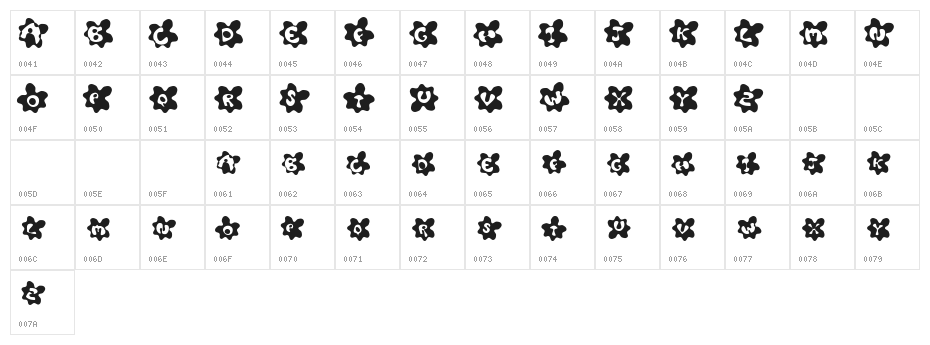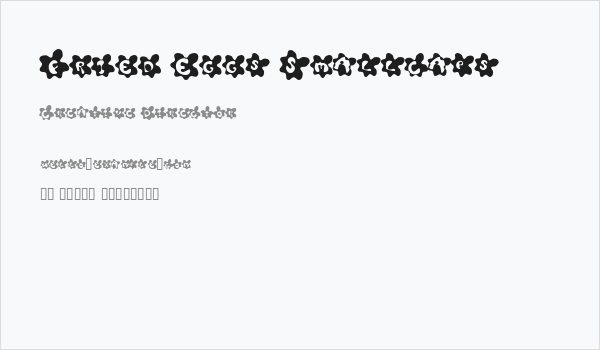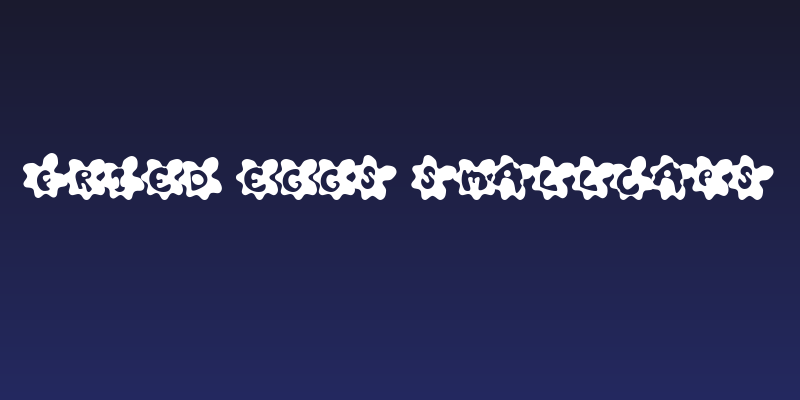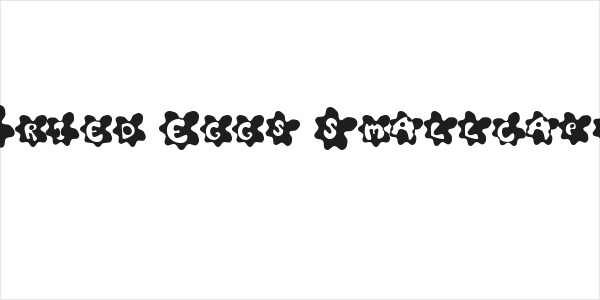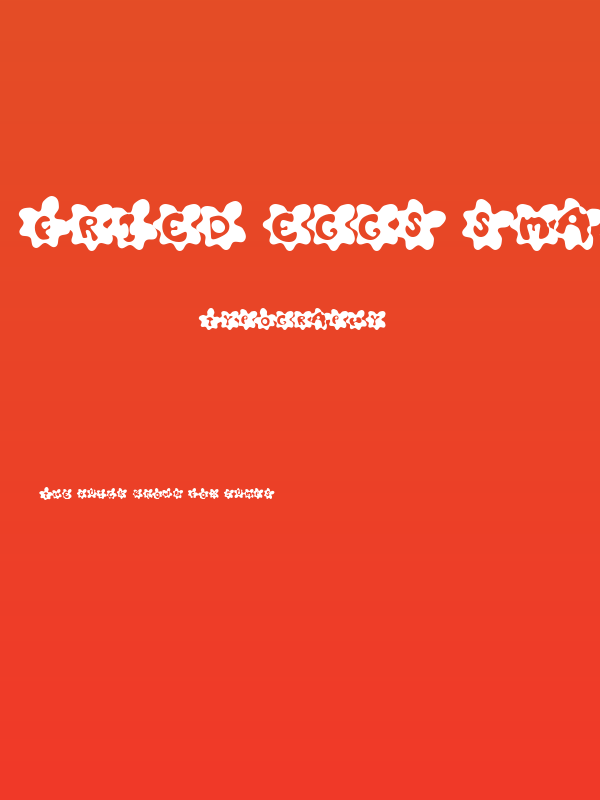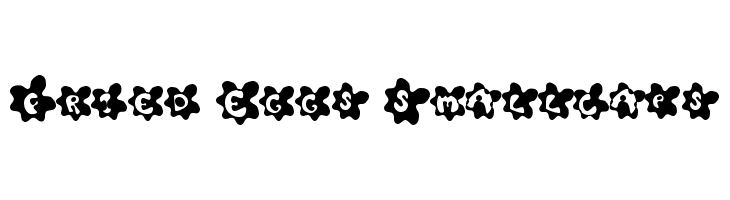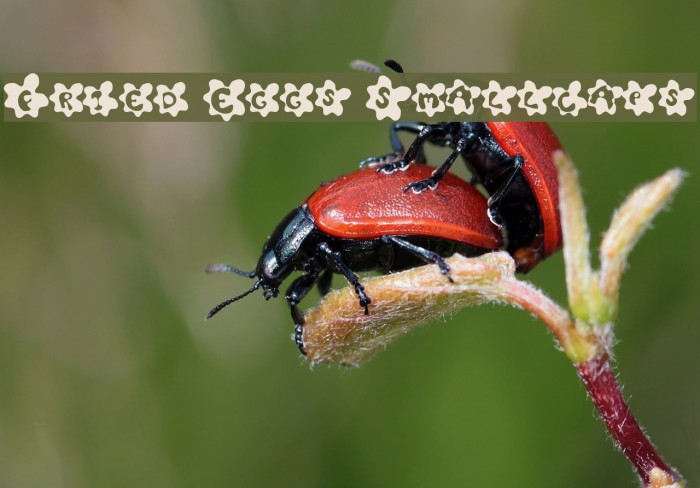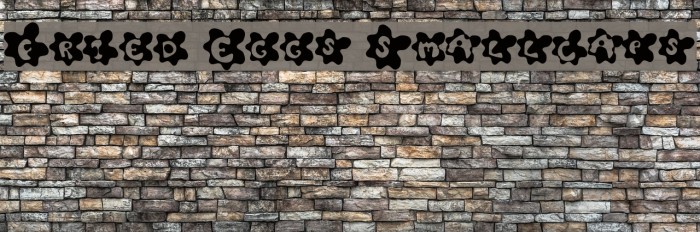
Fried Eggs Smallcaps Font
Fried Eggs Smallcaps Description
This playful and whimsical font features bold, rounded characters with a unique, bubbly appearance. Each letter is designed with a thick, black outline and filled with a solid color, giving it a cartoonish and fun look. The characters are reminiscent of fried eggs, with their irregular, organic shapes and playful style. This font is perfect for projects that require a lighthearted and cheerful touch, such as children's books, party invitations, or playful branding. The font's distinctive style makes it stand out, ensuring that any text using it will capture attention and convey a sense of fun and creativity.
| Overall Style | Playful, Whimsical |
| Use Case | Headlines, Logos, Decorative text |
| Proposed Projects | Children's books, party invitations, playful branding, cartoon graphics. |